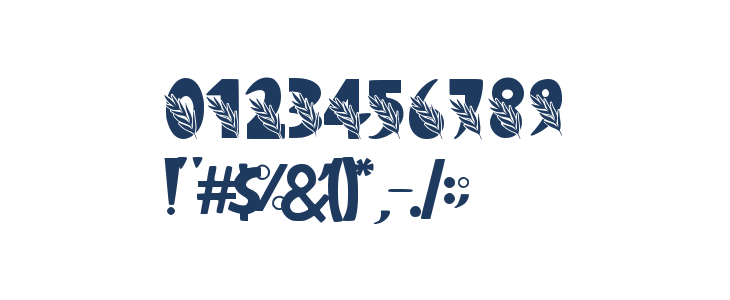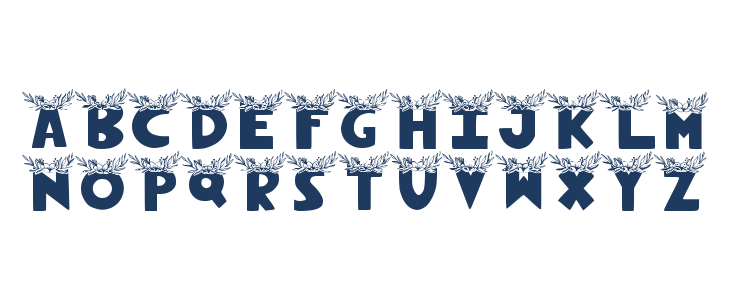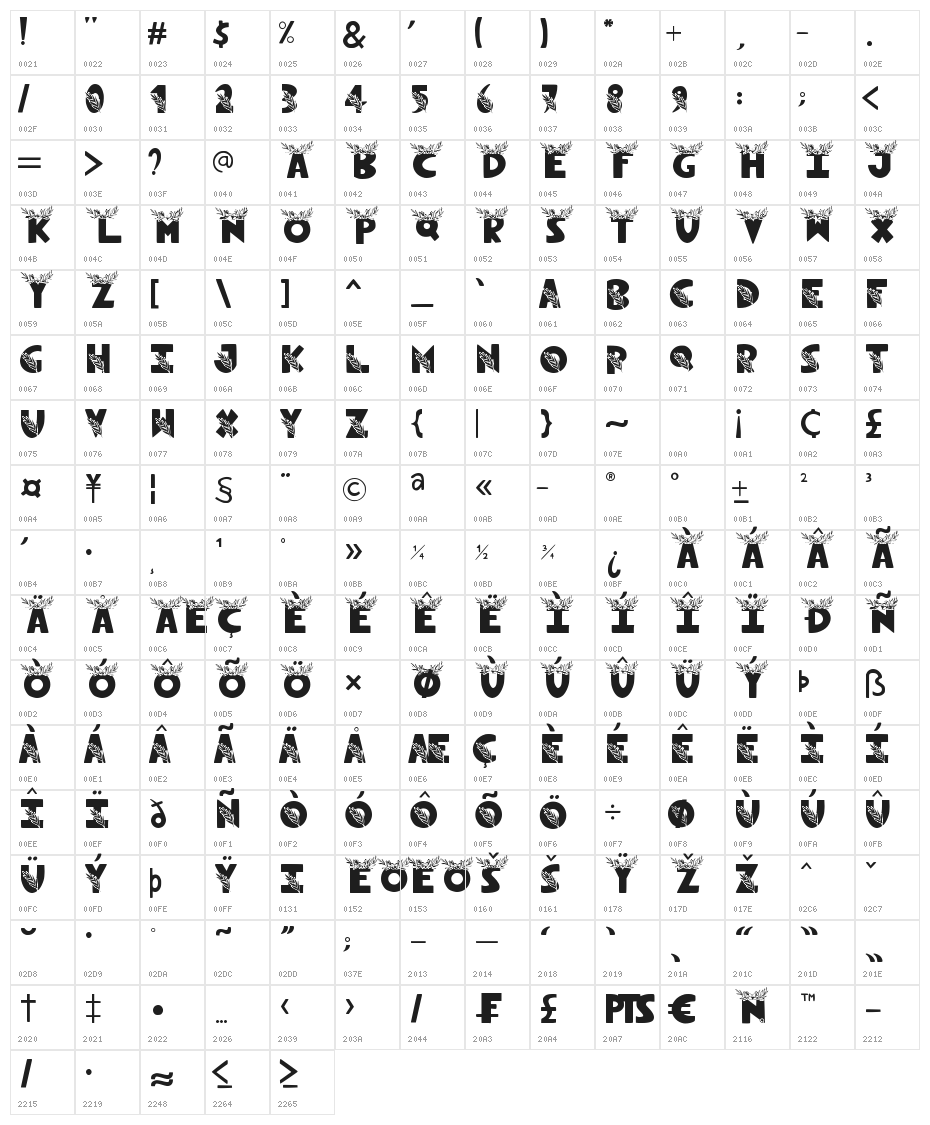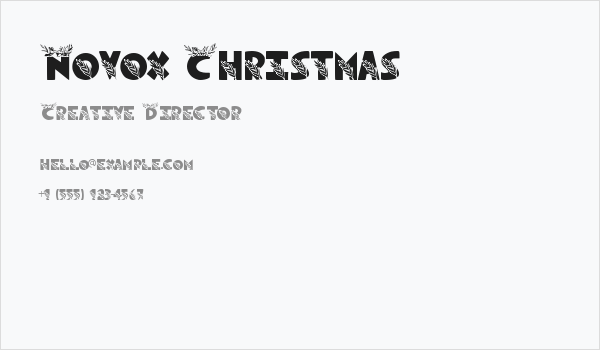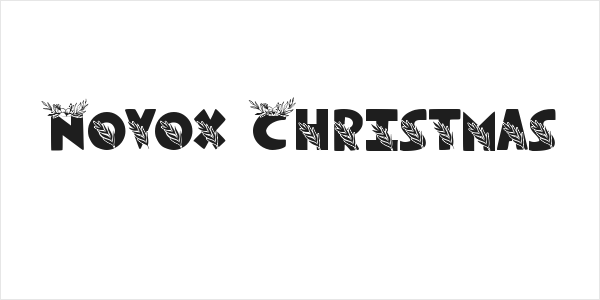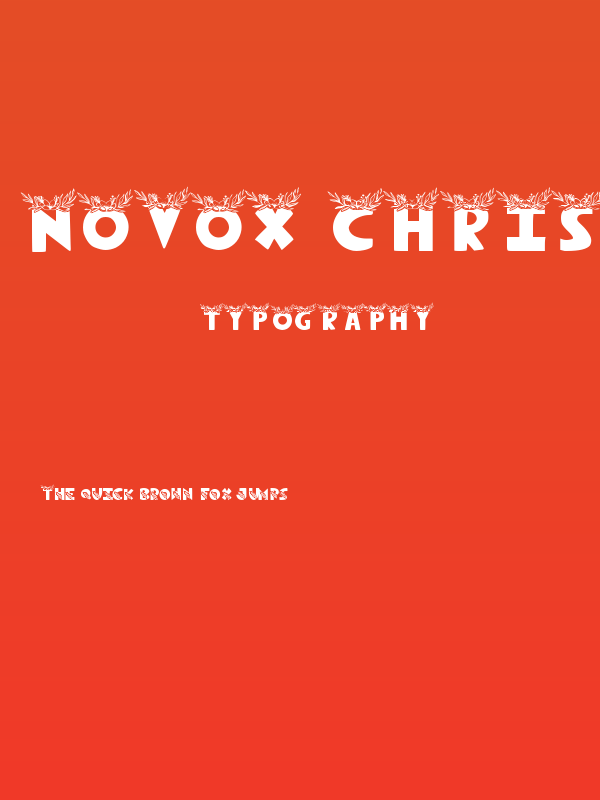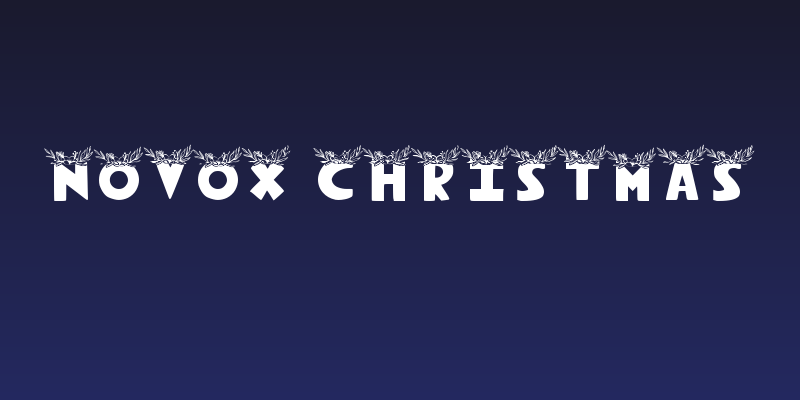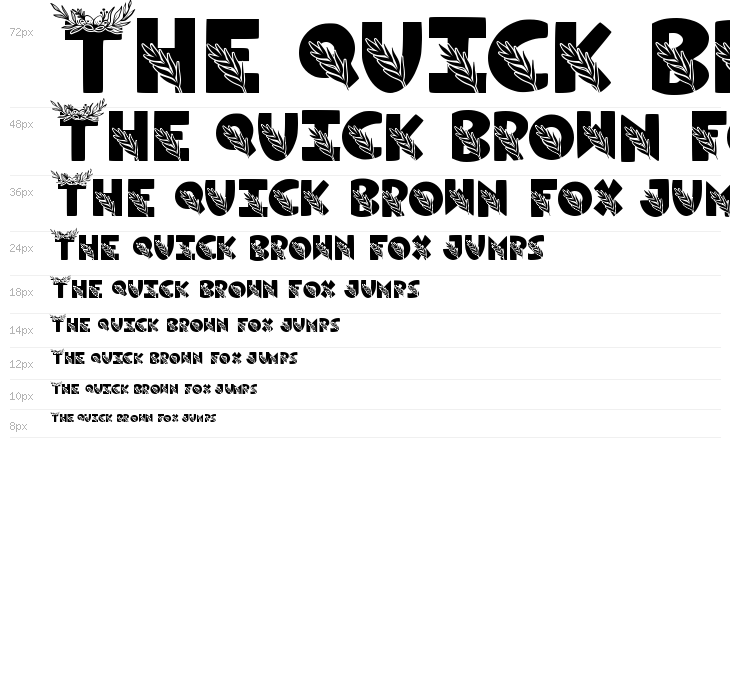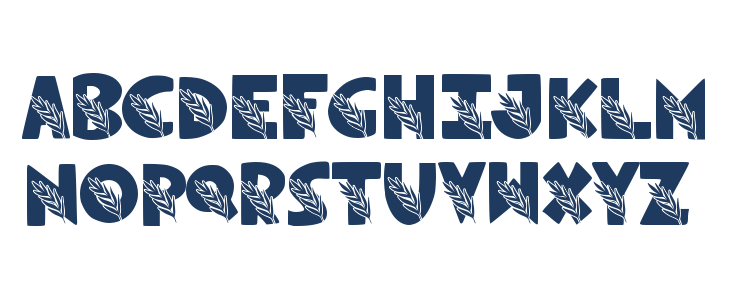
Novox Christmas Font
Novox Christmas Description
A bold, decorative display font featuring solid geometric letterforms with festive leaf and branch embellishments integrated into each character, evoking a holiday or winter theme. The uppercase letters and numbers are highly stylized, with consistent ornamentation throughout.
Overall StyleDecorative, Festive, Modern
Use CaseHeadlines, Posters, Event Invitations, Holiday Graphics
Proposed ProjectsHoliday cards, seasonal posters, event invitations, festive branding, decorative headlines.